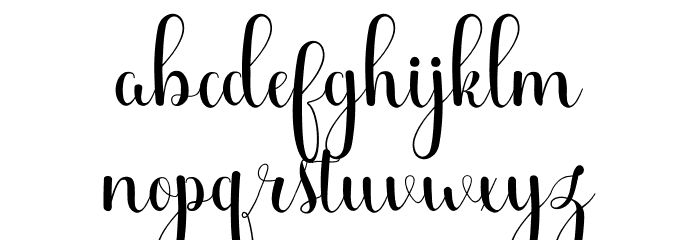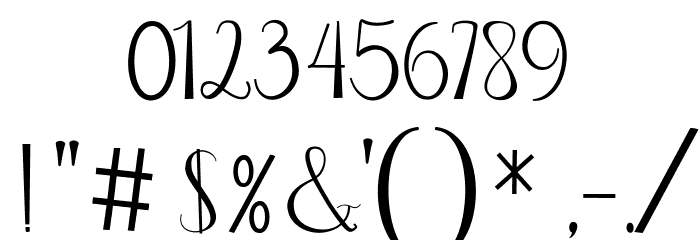
Beauty maheyrah Free Font
This font features an elegant and flowing script style, characterized by its decorative and intricate letterforms. The uppercase letters are particularly ornate, with sweeping curves and loops that give a sense of movement and grace. The lowercase letters maintain a consistent style, with a slightly more restrained flourish, making them highly readable while still retaining a sense of elegance. The numerals are designed to match the overall aesthetic, with a balance of curves and straight lines. Special characters are included, each crafted with the same attention to detail as the letters and numbers. This font is perfect for projects that require a touch of sophistication and style.
An elegant and flowing script font with ornate uppercase and readable lowercase letters.
- Proposed Projects: Ideal for wedding invitations, branding, greeting cards, and elegant signage.
- Use Case: Logos, Headlines, Invitations